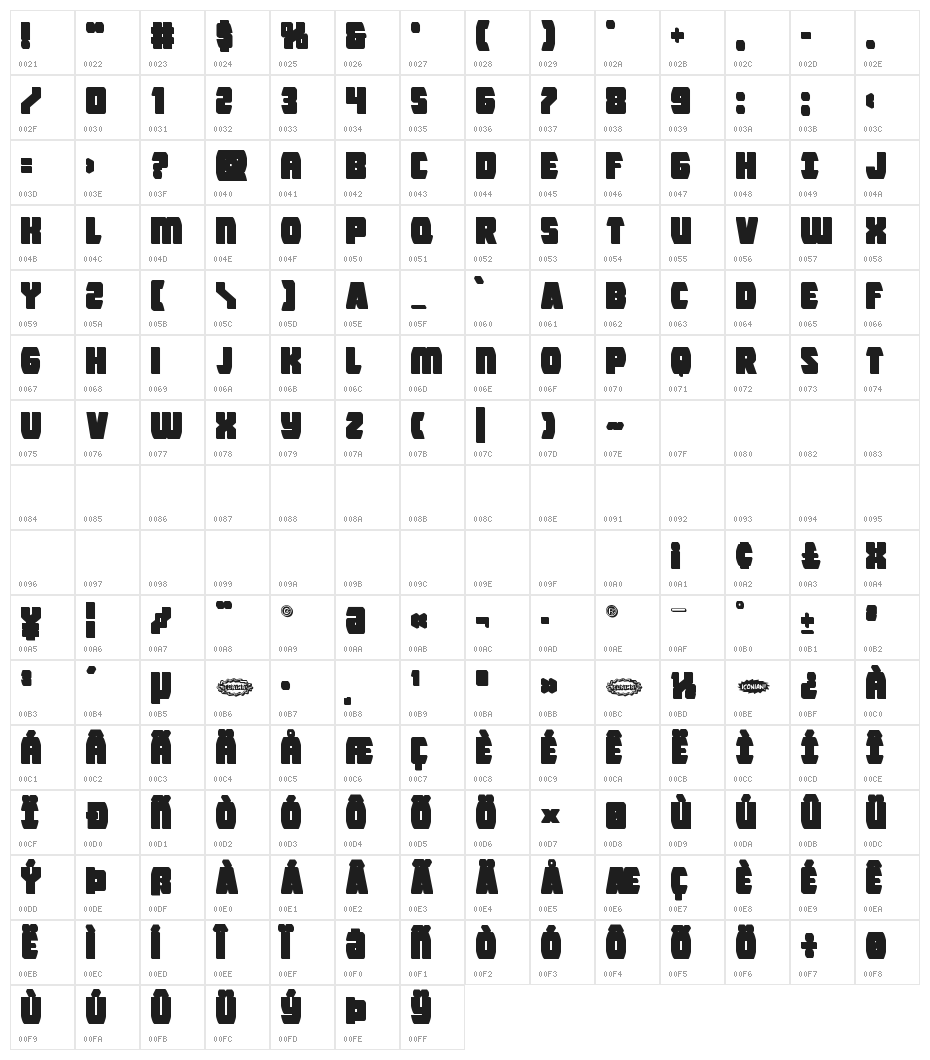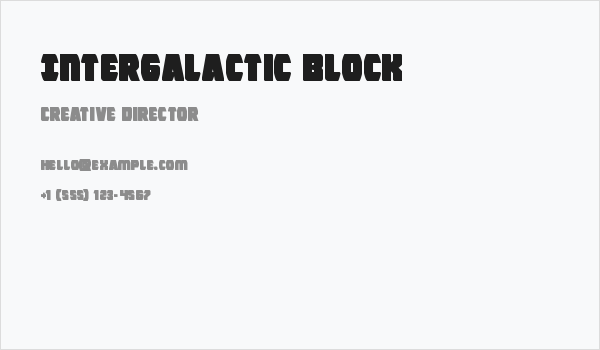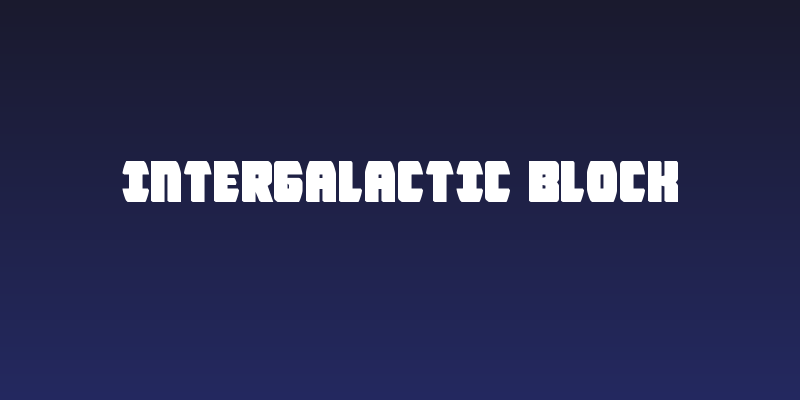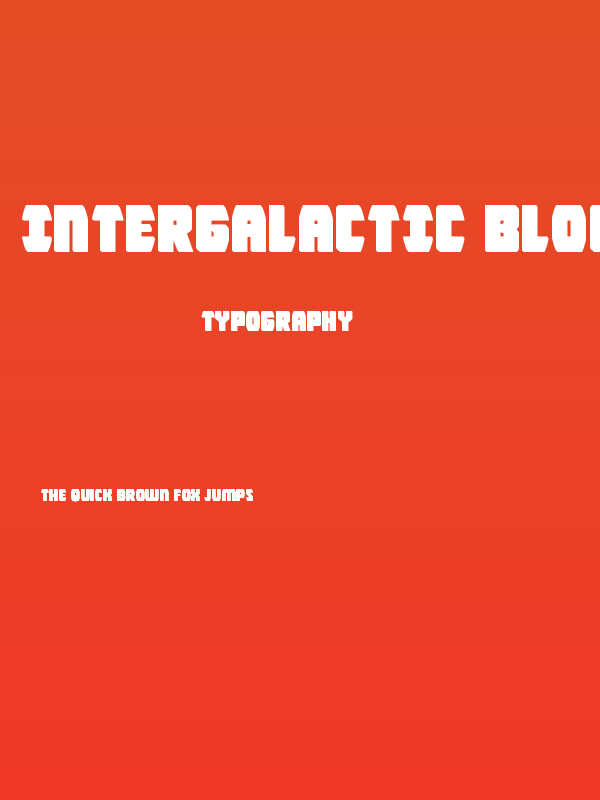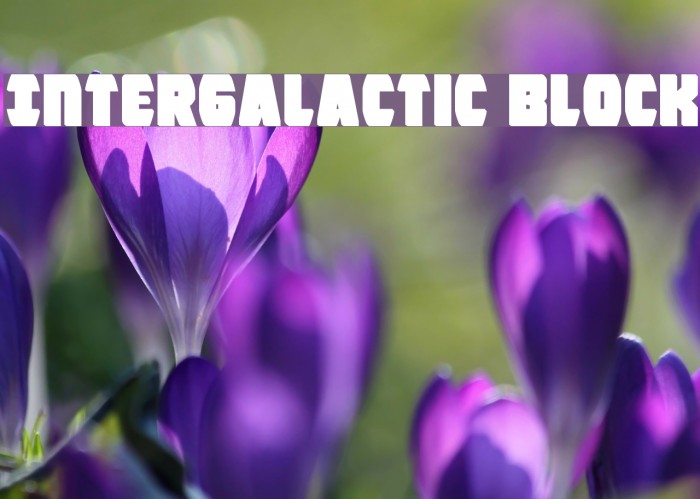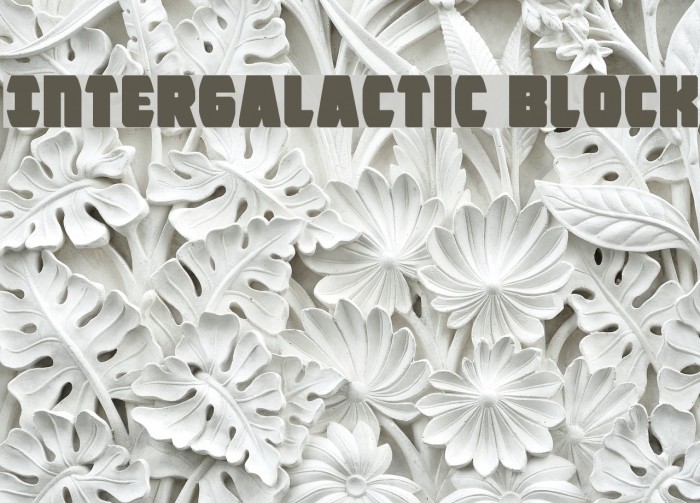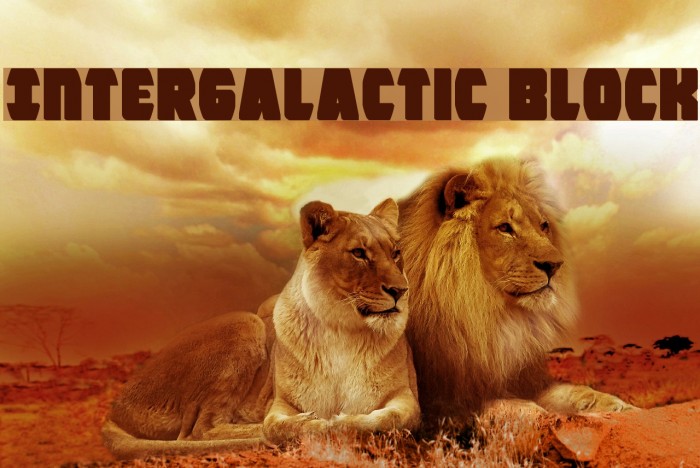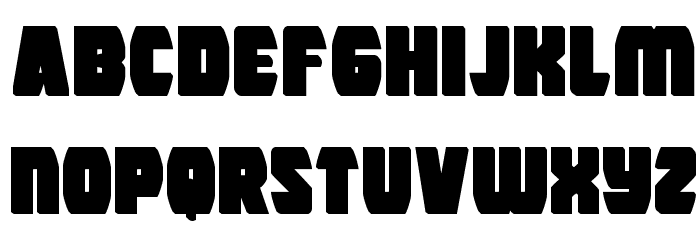
Intergalactic Block Font
Intergalactic Block Description
This font features a bold, blocky design with a futuristic and geometric aesthetic. The characters are uniformly thick, creating a strong visual impact. Each letter and number is crafted with sharp angles and straight lines, giving it a modern and industrial feel. The uppercase and lowercase letters maintain a consistent style, with the lowercase being slightly smaller but equally bold. The numbers are designed to match the robust style of the letters, ensuring a cohesive look across all characters. Special characters are included, following the same bold and angular design, making this font versatile for various applications.